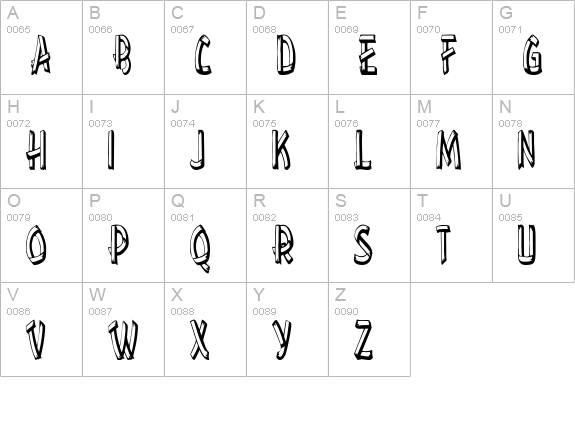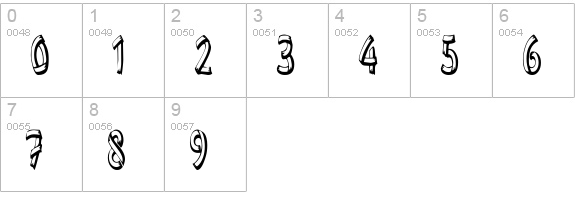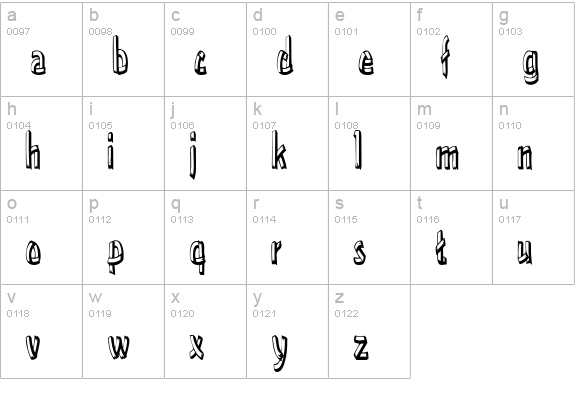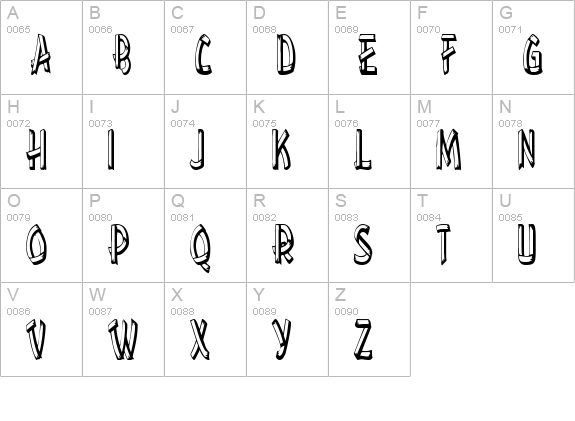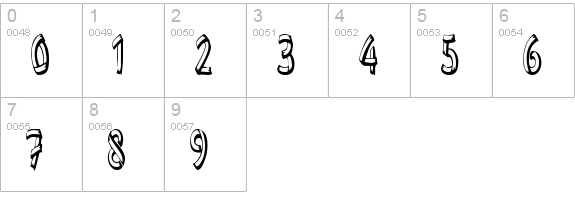
TreehouseCondensed Font Details
Introducing TreehouseCondensed font, a versatile and contemporary typeface that will elevate your designs to new heights. With its clean and streamlined look, this font is perfect for a wide range of projects, from branding and advertising to editorial and web design. TreehouseCondensed font boasts a unique balance of elegance and modernity, making it a go-to choice for those seeking a sophisticated and refined aesthetic. Its condensed proportions give it a sleek and stylish appearance, while its carefully crafted letterforms ensure legibility and readability in any size or format. But what sets TreehouseCondensed font apart is not just its stunning design, but also its accessibility. We believe that great design should be available to everyone, which is why TreehouseCondensed font is freely available to download at FontsMarket.com. Whether you're a professional designer or a budding creative, you can now access this exceptional font without any cost, allowing you to bring your visions to life with ease. So why wait? Don't miss out on the opportunity to enhance your designs with TreehouseCondensed font. Download it today at FontsMarket.com and experience the seamless blend of elegance and modernity that this font has to offer. Open up a world of possibilities and let TreehouseCondensed font be your creative companion.